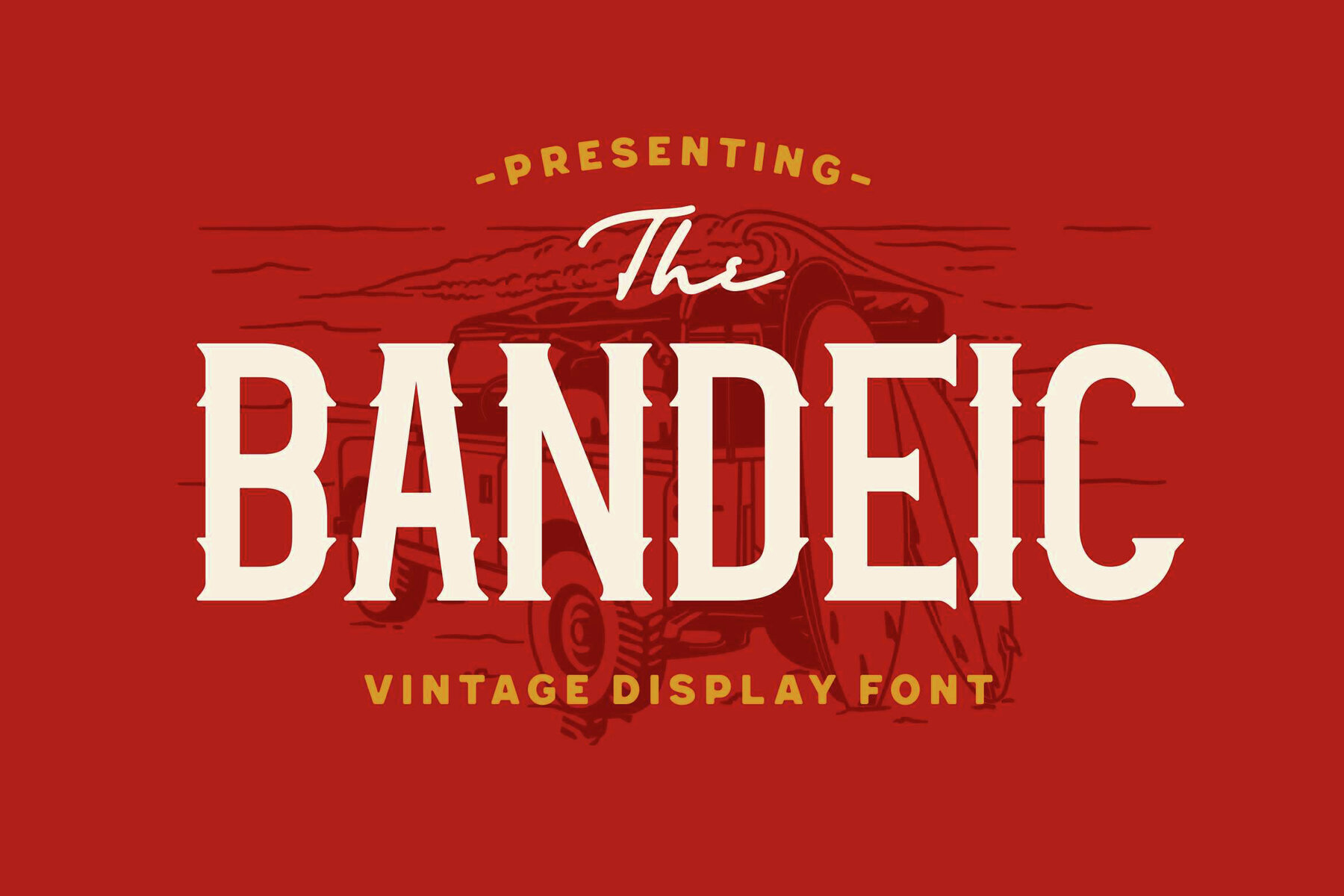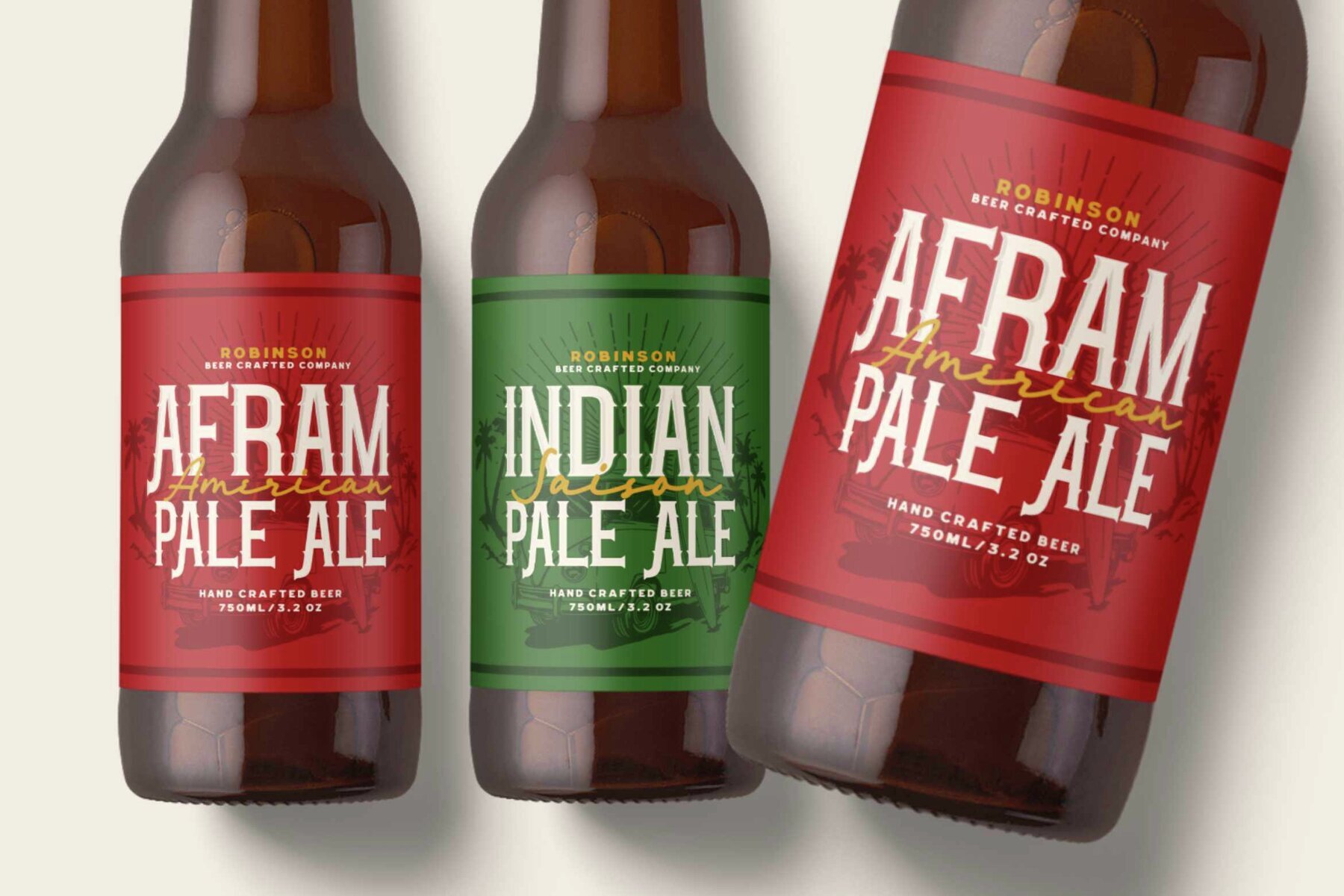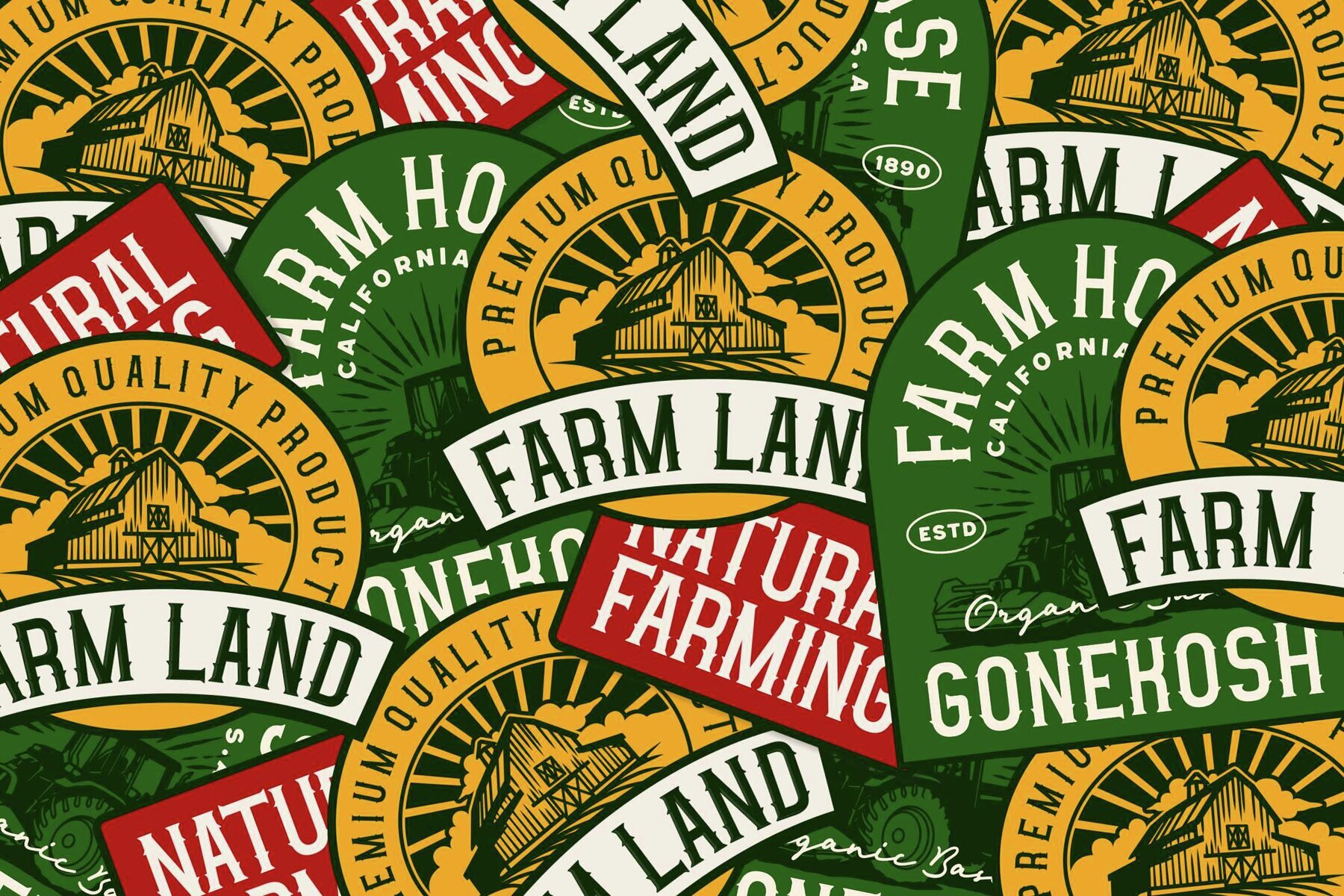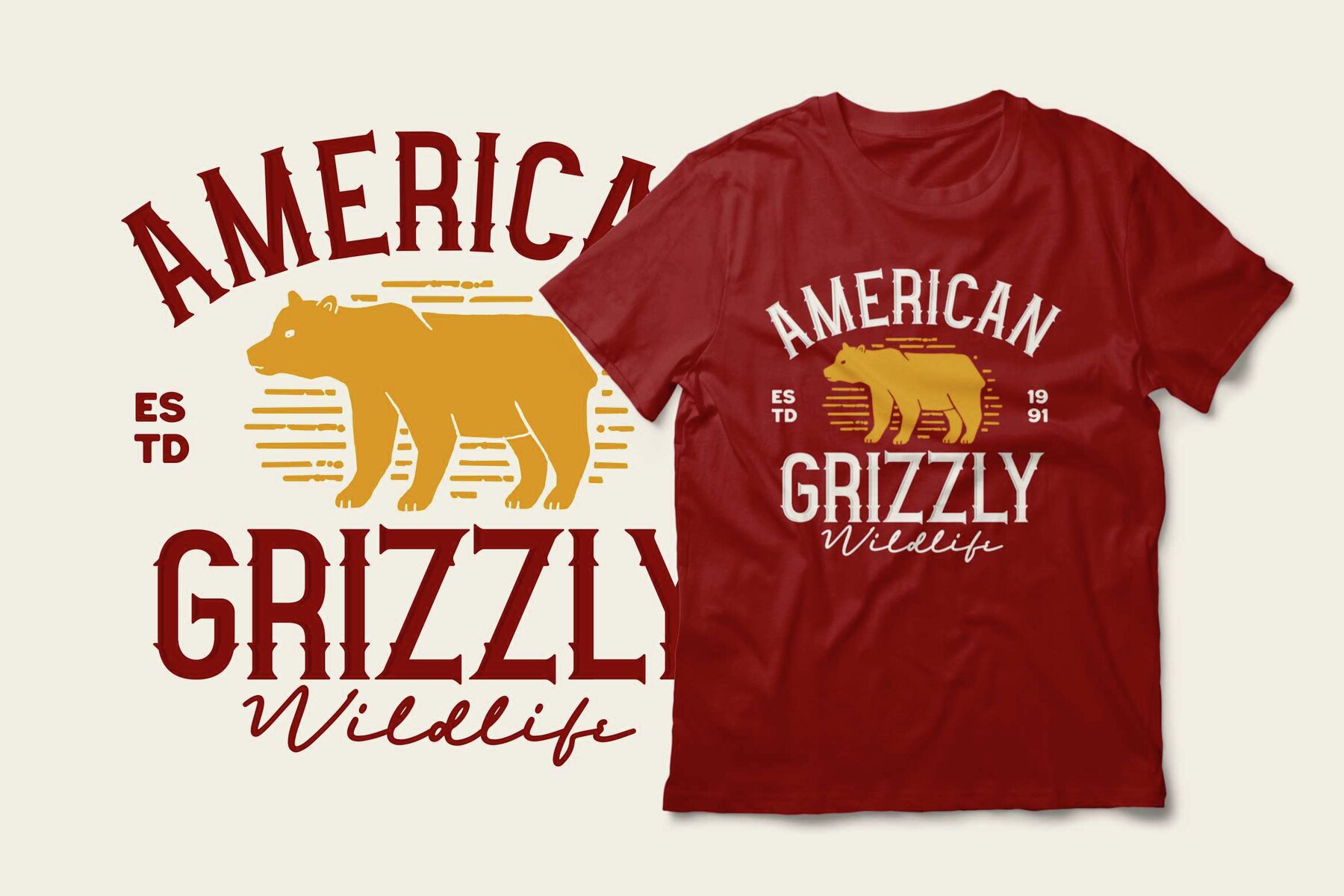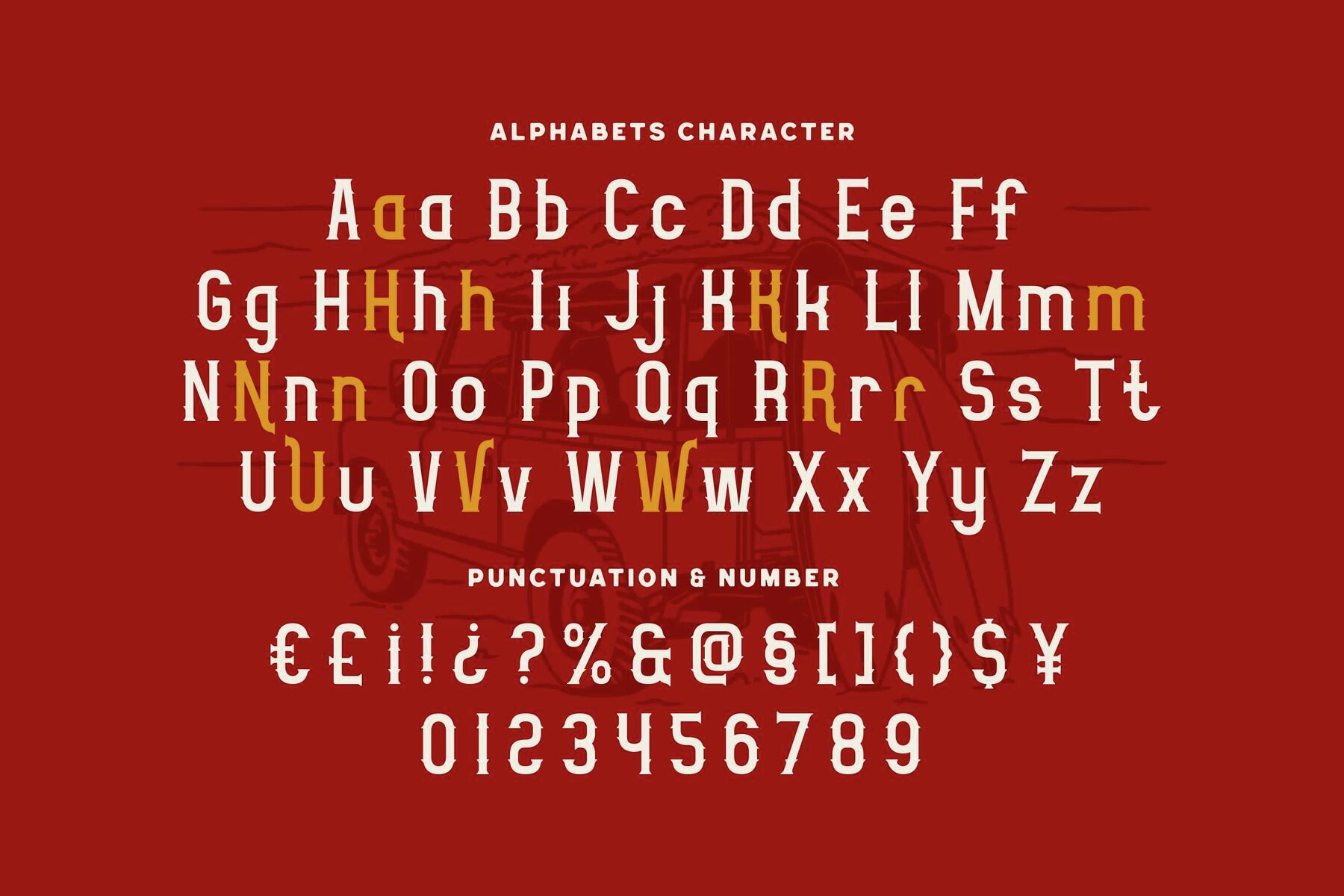
Bandeic Font
Bandeic Regular
Bandeic is a vintage serif typeface designed for impressive, character-driven headlines. Its tall, slightly condensed forms use wedge serifs and decorative notches inspired by classic signage. Every letter delivers a balance of robust structure and refined detail, lending a handcrafted feel to your work. This typeface is an excellent choice for brands and creatives looking to add a traditional, artisanal personality to their projects. Bandeic stands out on beverage labels, farm and outdoor badges, packaging, posters, and logos—bringing the spirit of old-world craftsmanship to modern design.Bandeic Vintage Serif Typeface